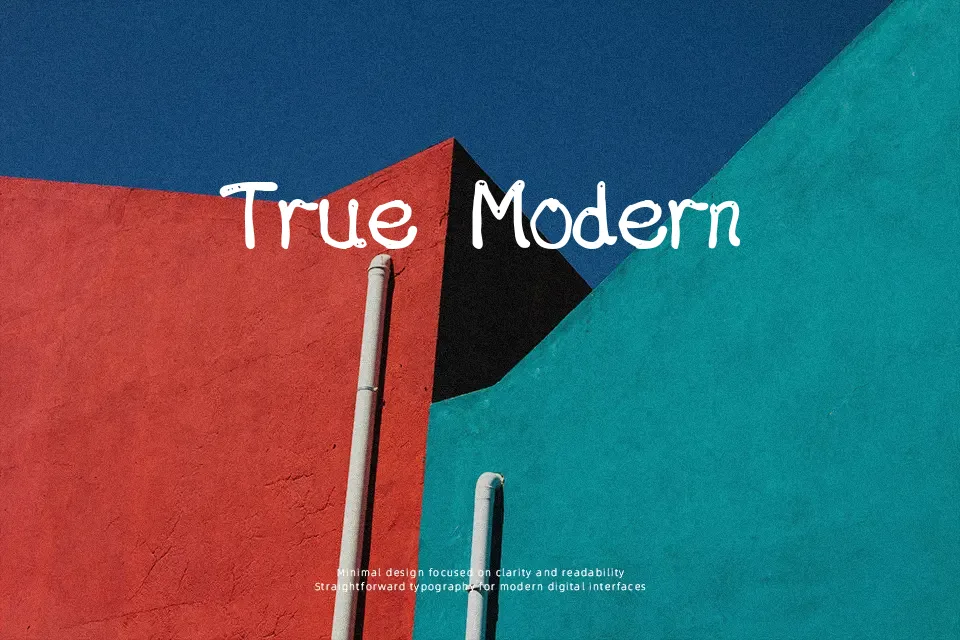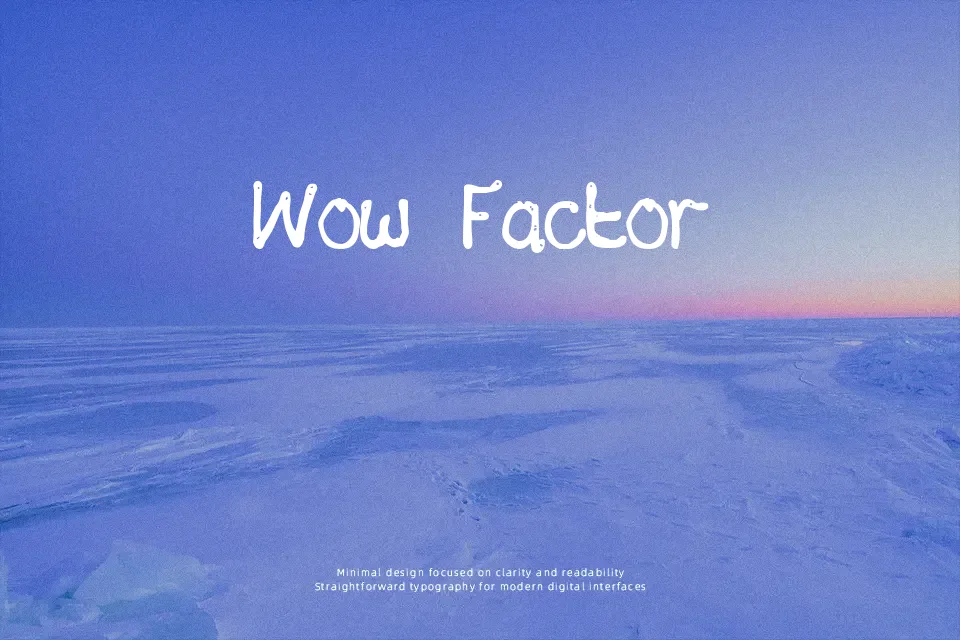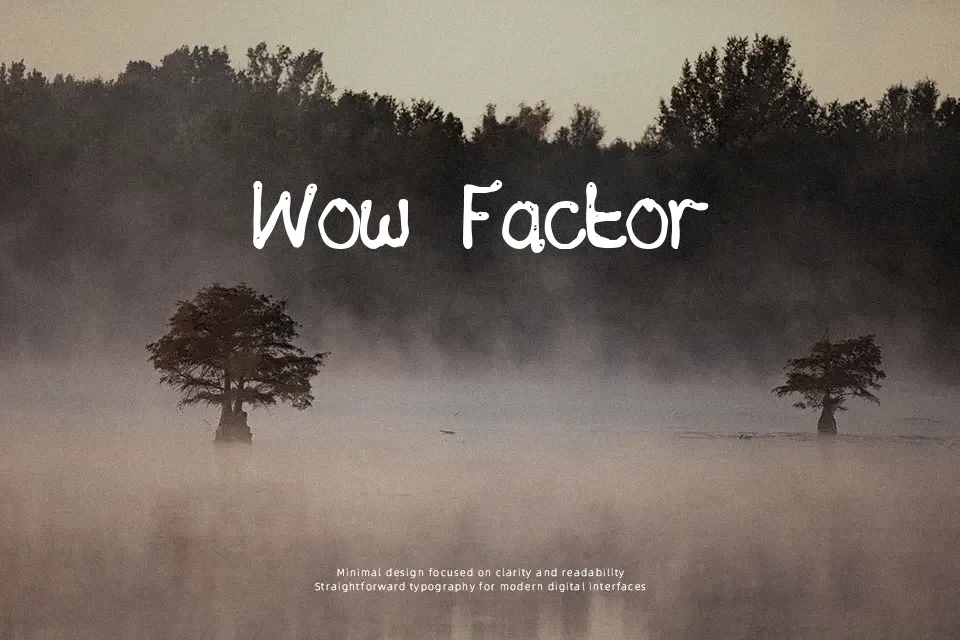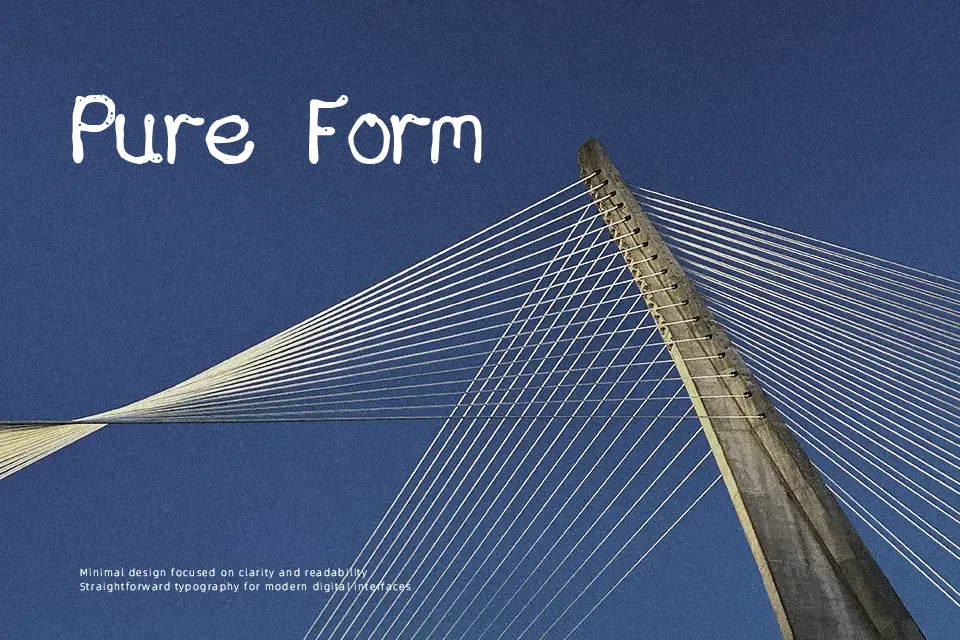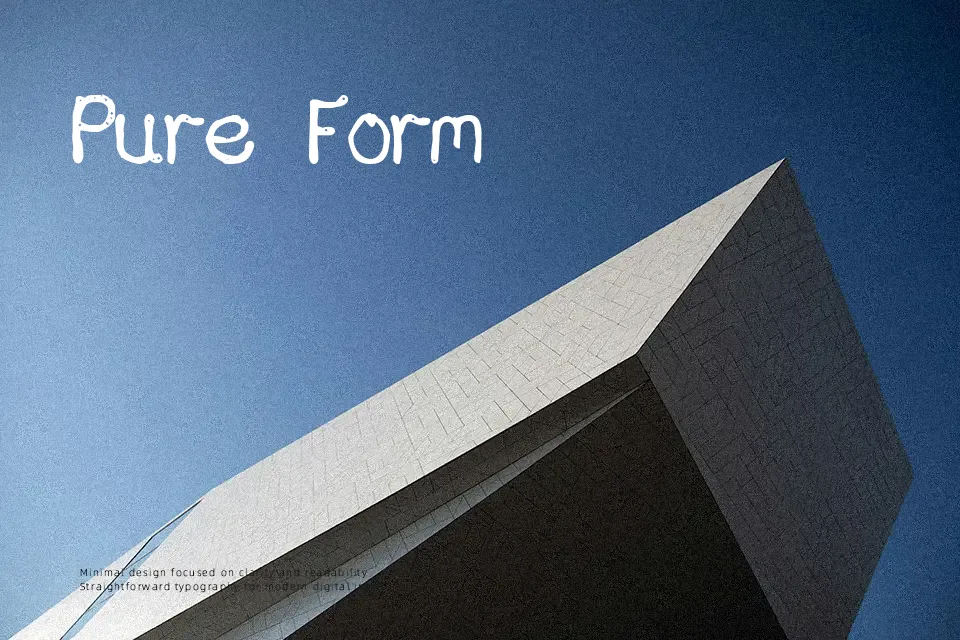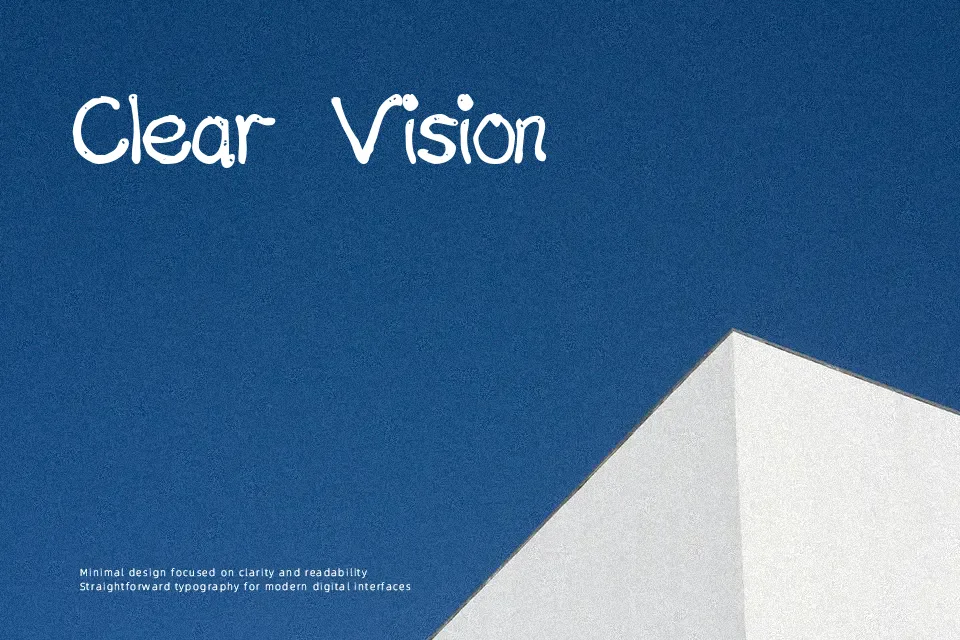
Chocolate Type Font
Chocolate Type Font showcases handcrafted, fluid silhouettes characterized by thick, uneven strokes and rounded, dripping terminals. Each glyph exhibits low stroke contrast and wide, irregular proportions that create an authentic, hand-drawn consistency across uppercase and lowercase sets. Spacing between characters is relatively open to accommodate the organic, swelling outlines without causing visual clutter in display headlines. The letterforms maintain distinct personality and strong presence in large product labels, sweet shop menus, and festive event posters. However, the heavy, decorative contours significantly reduce legibility at smaller text sizes, making the typeface unsuitable for extended editorial paragraphs or dense interface layouts.
dessert shop menu headers, artisan confectionery packaging, beverage brand signage, themed promotional posters
continuous paragraph text, mobile interface captions, dense editorial layouts, technical documentation
Perfect for headline, logo, and packaging, with a artistic and decorative style.